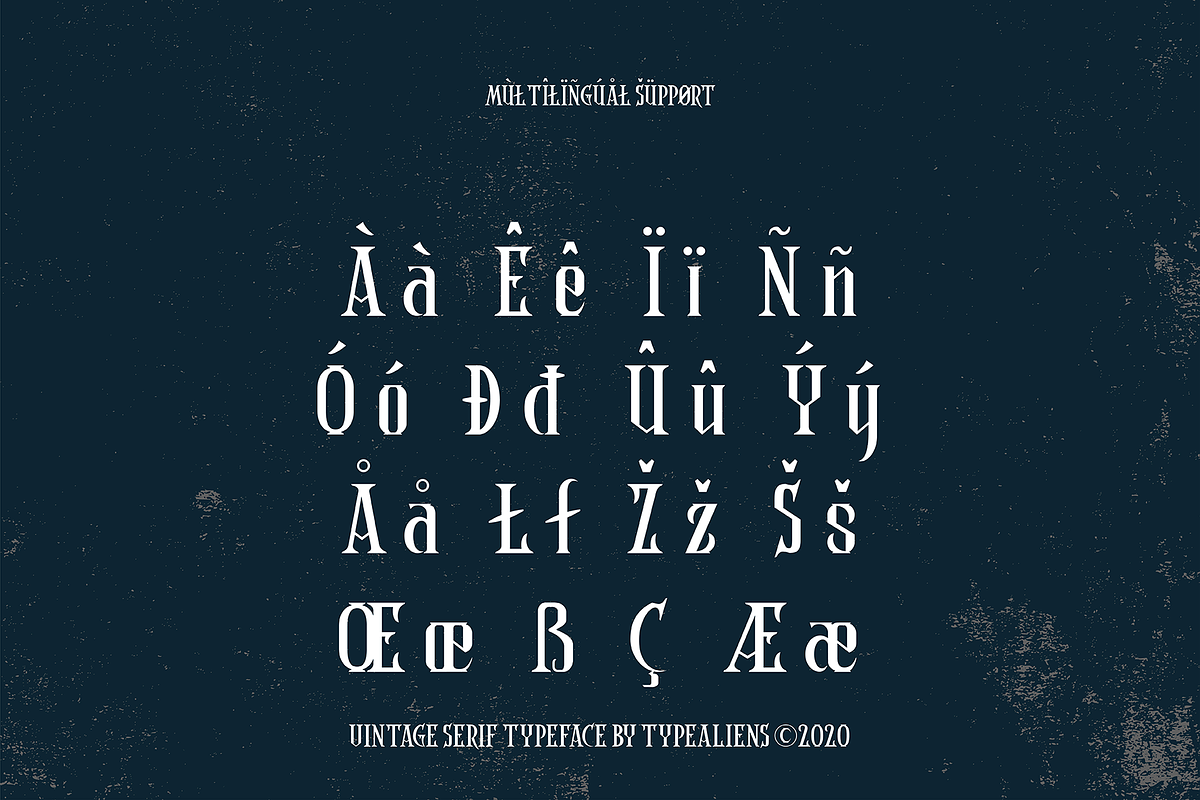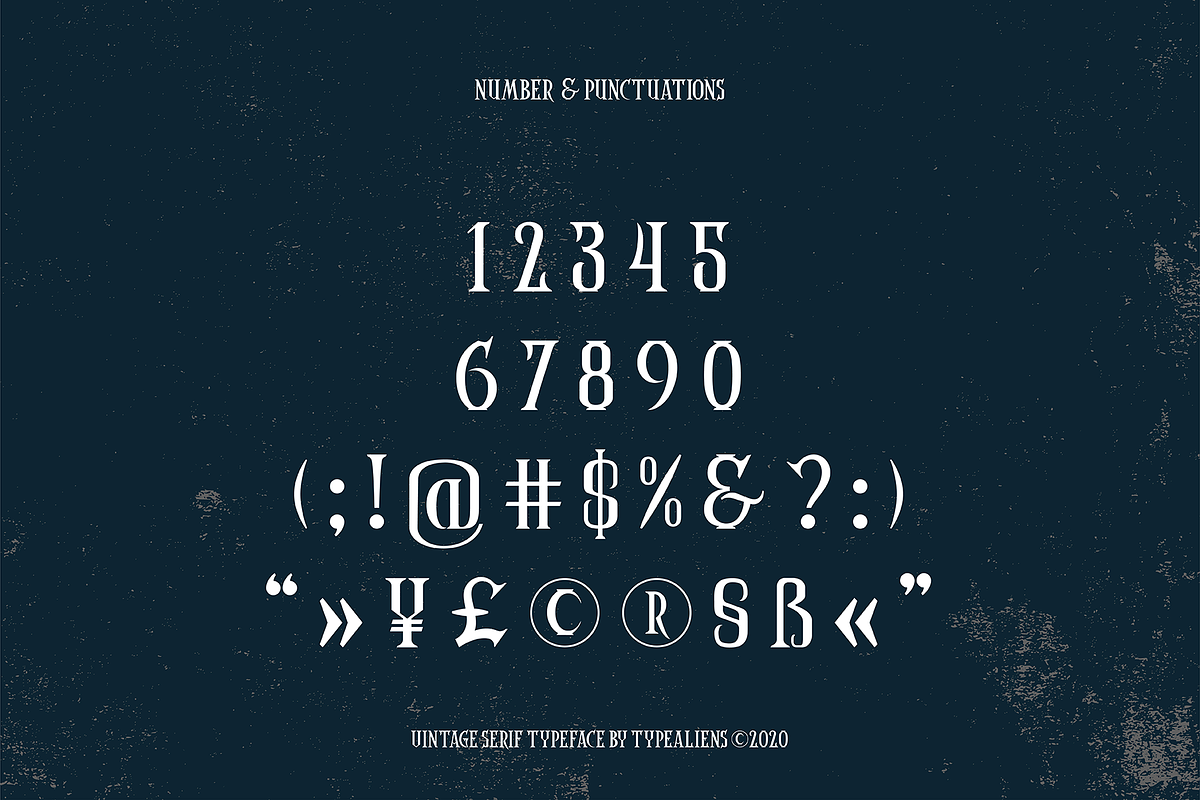
Coaster Ghost
COASTER GHOST is a serif type font that is quite rigid, suitable for badge design, as well as for logo design, logotype, as the title font or as a supporting font. Impression of the stiffness so this font seems a bit gothic and certainly vintage.